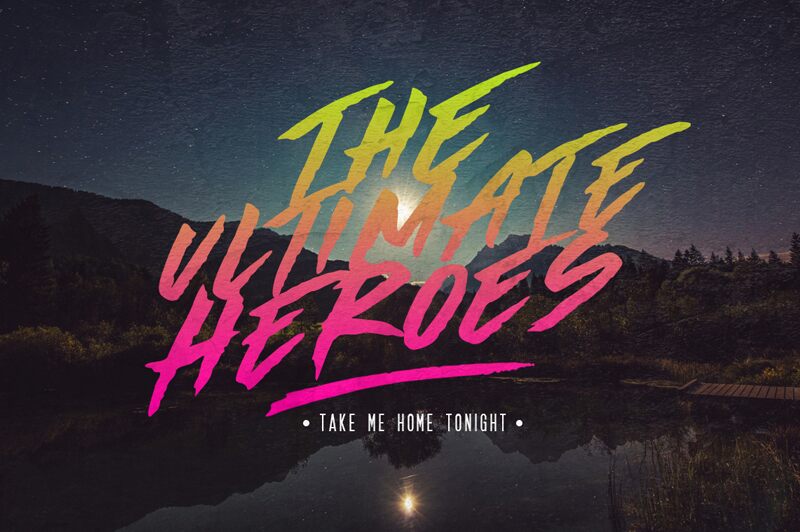
Made by Bears by The Branded Quotes is a bold, fearsome font that exudes an unapologetic, wild energy. Its gnarled, brush-like strokes convey a sense of raw power and untamed ferocity, perfect for branding projects that demand an assertive, attention-grabbing aesthetic.
The font's rugged, almost primal appearance lends itself well to a variety of design applications, from concert posters and album covers to activist campaign materials. Its striking, visually striking style makes it an impactful choice for headlines, logotypes, and other display-oriented design elements that need to command the viewer's attention.